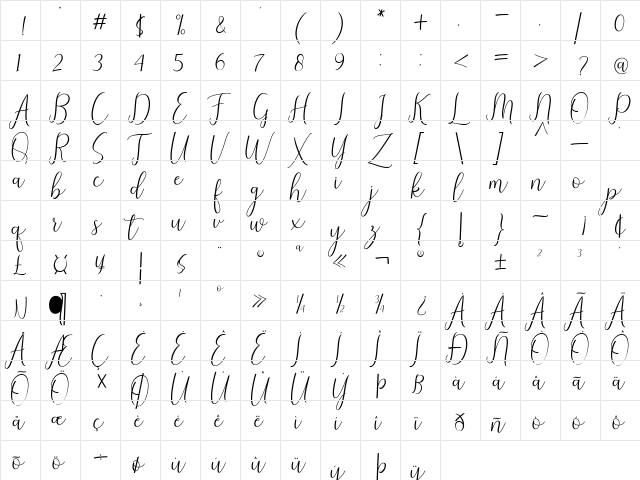
Stella Regular Font Preview
Stella Regular
Stella Regular Font Details
| Foundry | Rudistudio |
Design Context for Stella Typeface
Stella takes a measured approach to typography — its balanced proportions and neutral character make it a reliable workhorse for both digital and print work.